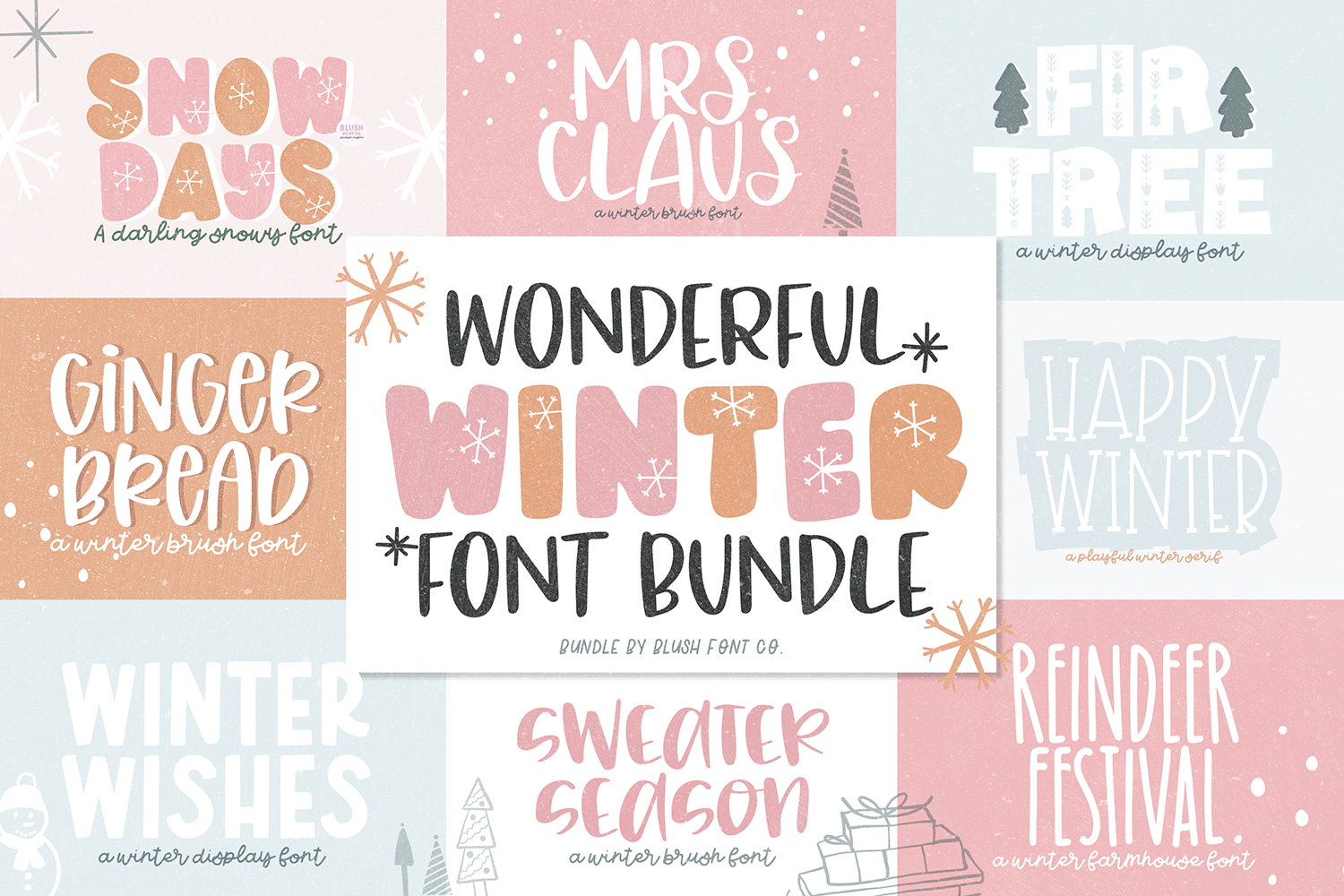
The Wonderful Winter bundle is here! Grab these 8 FUN winter fonts in one download, for huge savings! These fonts are going to be perfect for all of your cute Christmas and winter crafts, like decor, sweaters, and party invitations! The 8 fonts included are:
GINGERBREAD
SWEATER SEASON
FIR TREE
SNOW DAYS
REINDEER FESTIVAL
WINTER WISHES
HAPPY WINTER
MRS CLAUS